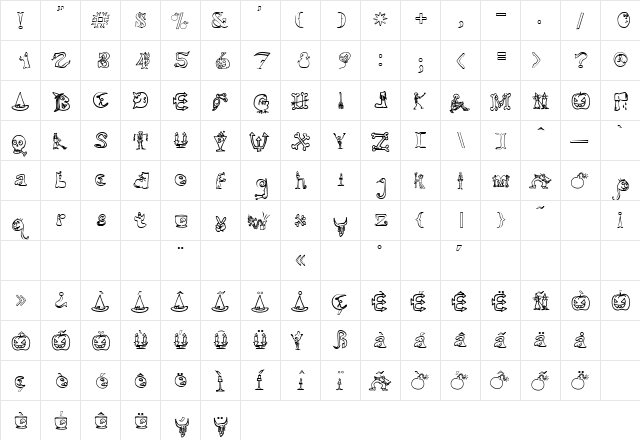
Halloween Unregistered
Design Context for Halloween Typeface
Halloween is a composed and adaptable typeface that performs quietly and consistently across a wide range of design contexts.